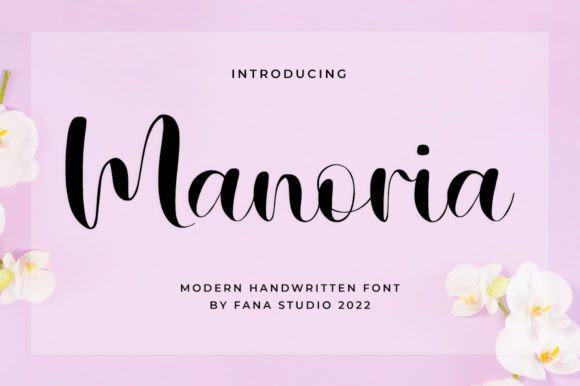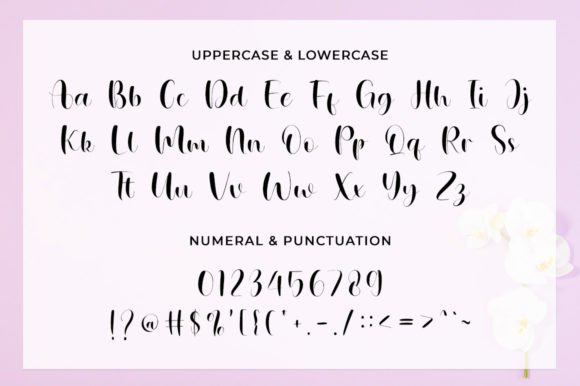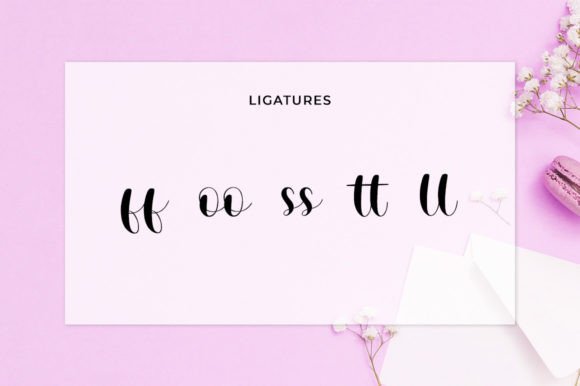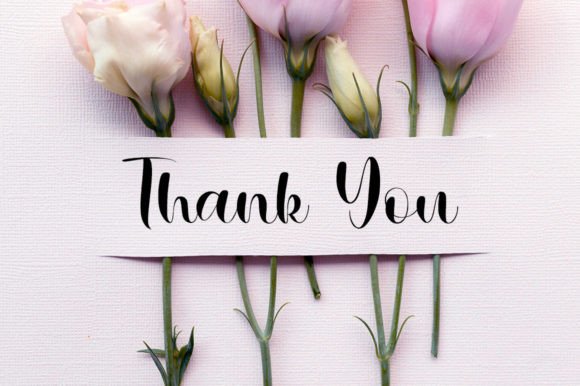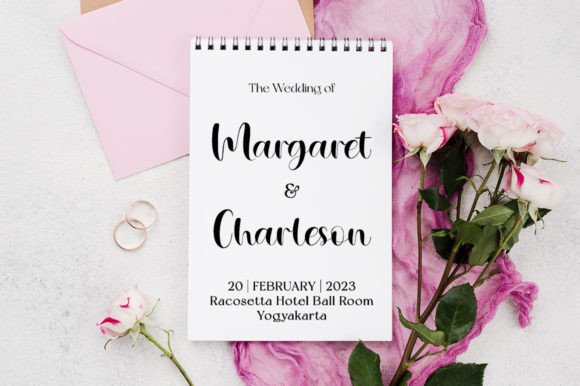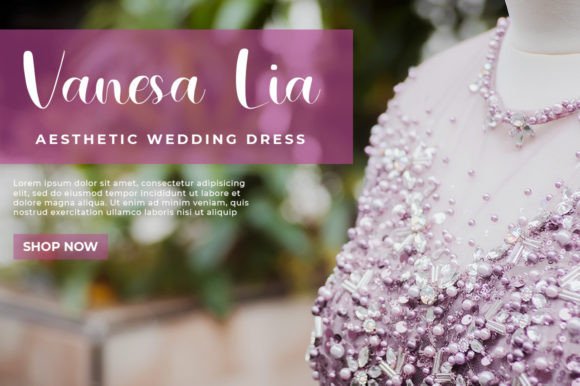
About Manoria Font Download
The Manoria Font Download is a graceful handwritten typeface that feels both charming and elegant. Designed with stylish handwritten strokes, Manoria elevates every design project with sophistication and warmth. Whether you’re working on invitations, logos, or greeting cards, this font adds a unique personal touch that stands out.
Elegant and Timeless Handwritten Style
The Manoria script font blends a refined handwritten flow with modern elegance. As a result, it is versatile and suitable for multiple creative contexts. Furthermore, its neat and balanced strokes make it easy to read, even in smaller sizes, while retaining beauty in larger displays.
Perfect for Invitations and Thank-You Cards
The Manoria Font is especially well-suited for wedding invitations, thank-you notes, and greeting cards. Because of its delicate handwritten appearance, each design feels warm and meaningful. In addition, it ensures your stationery stands out with a touch of luxury and romance.
Branding and Logo Design with Manoria Font
Typography plays a key role in branding, and the Manoria handwritten font is a perfect option for boutique logos, product packaging, and business identity. Its elegant style communicates professionalism while remaining approachable, which makes it highly effective for lifestyle and creative industries.
Posters, Quotes, and Creative Displays
The Manoria Font Download also shines in posters, wall art, quotes, and book covers. Its handwritten charm adds visual interest while keeping the message clear. Consequently, it becomes a reliable typeface for both print and digital designs that require elegance.
Digital Media and Social Content
In today’s design space, fonts must be adaptable across platforms. The Manoria typeface integrates smoothly into Instagram graphics, Pinterest boards, YouTube thumbnails, and blogs. Because of its handwritten sophistication, it makes digital content stand out in a refined way.
Why Designers Love Manoria Typeface
Designers appreciate fonts that combine elegance with usability. The Manoria handwritten script provides timeless appeal, versatility, and excellent readability. Moreover, its graceful rhythm ensures it will remain a favorite for future creative projects.